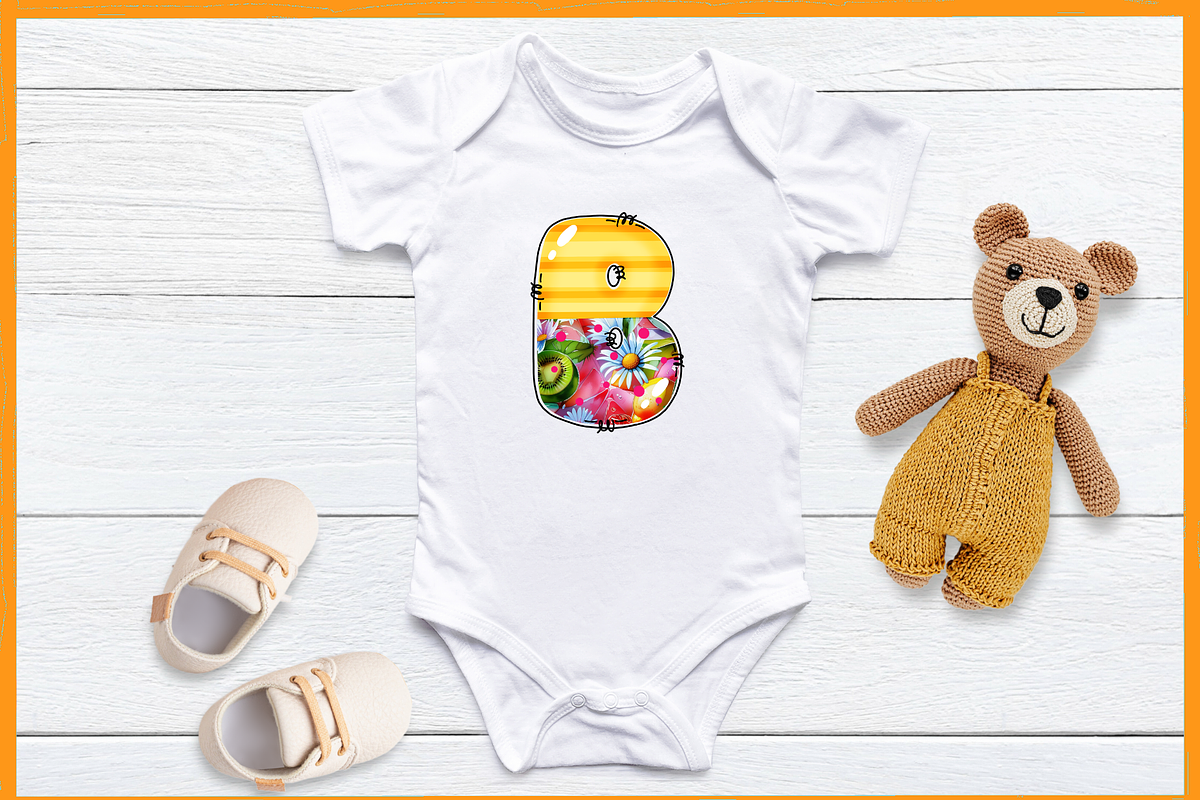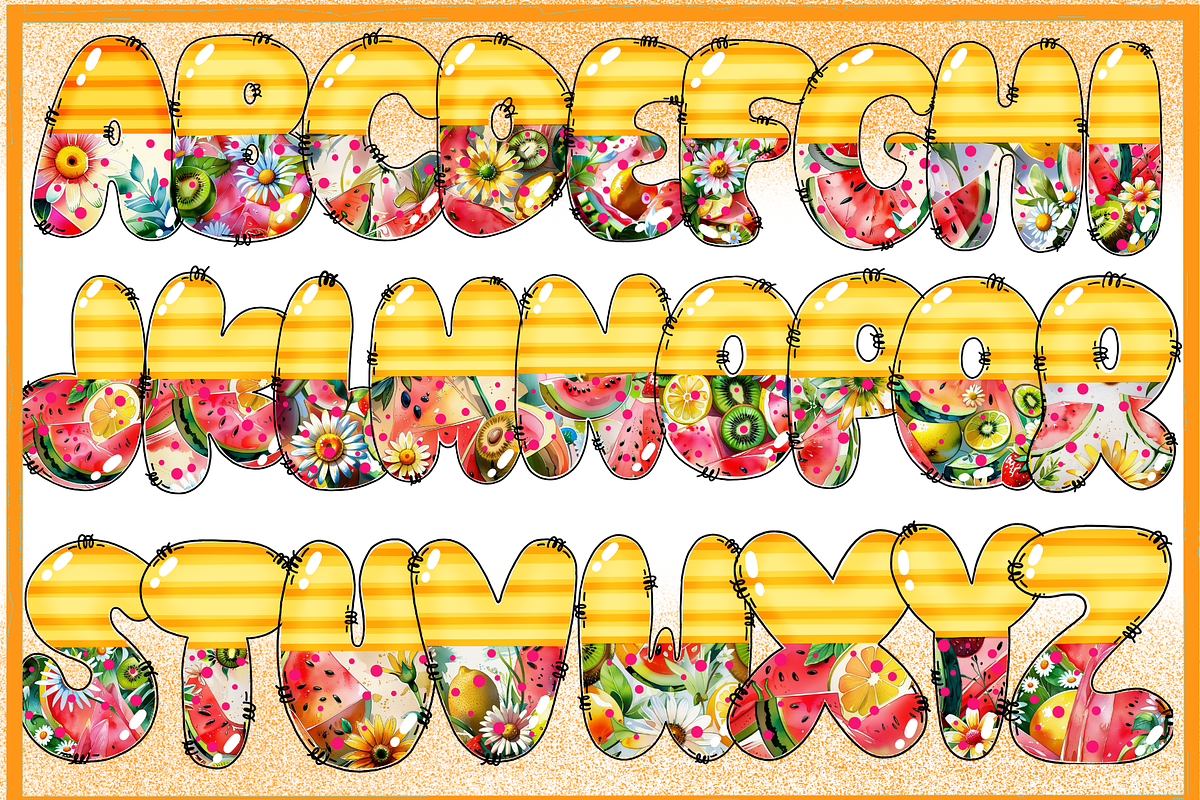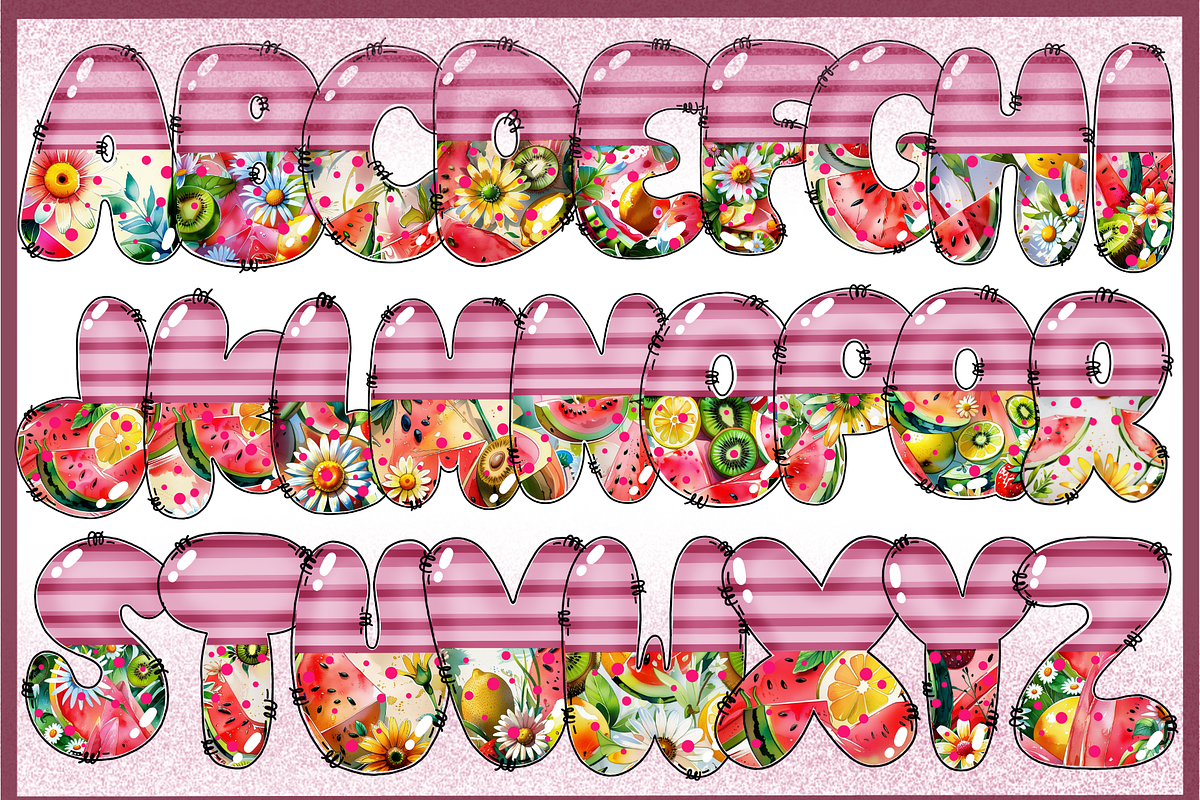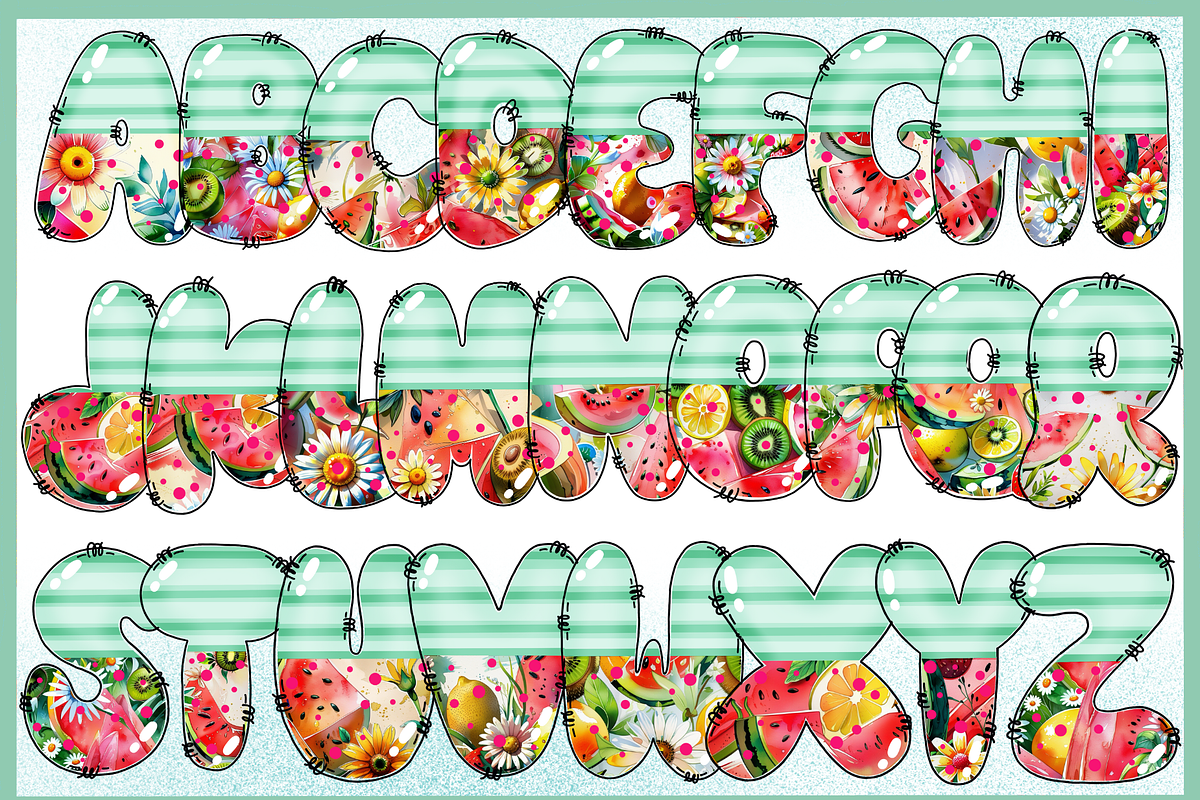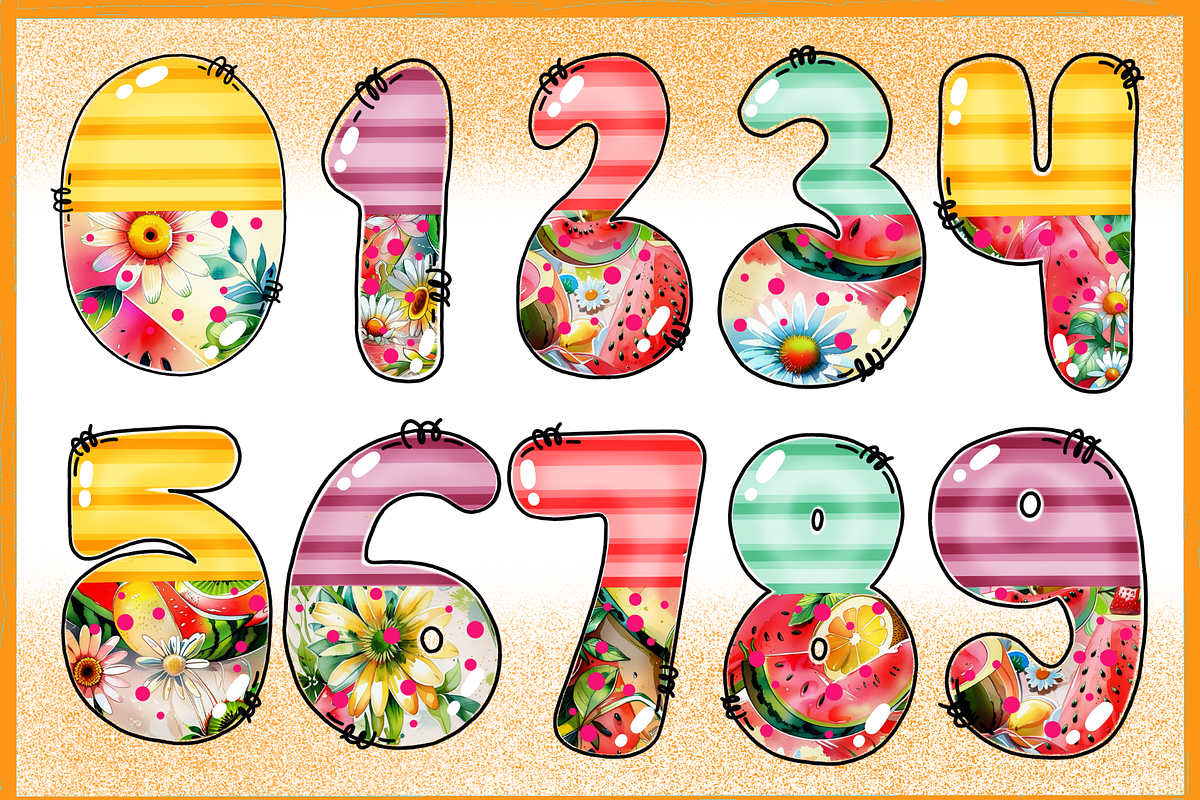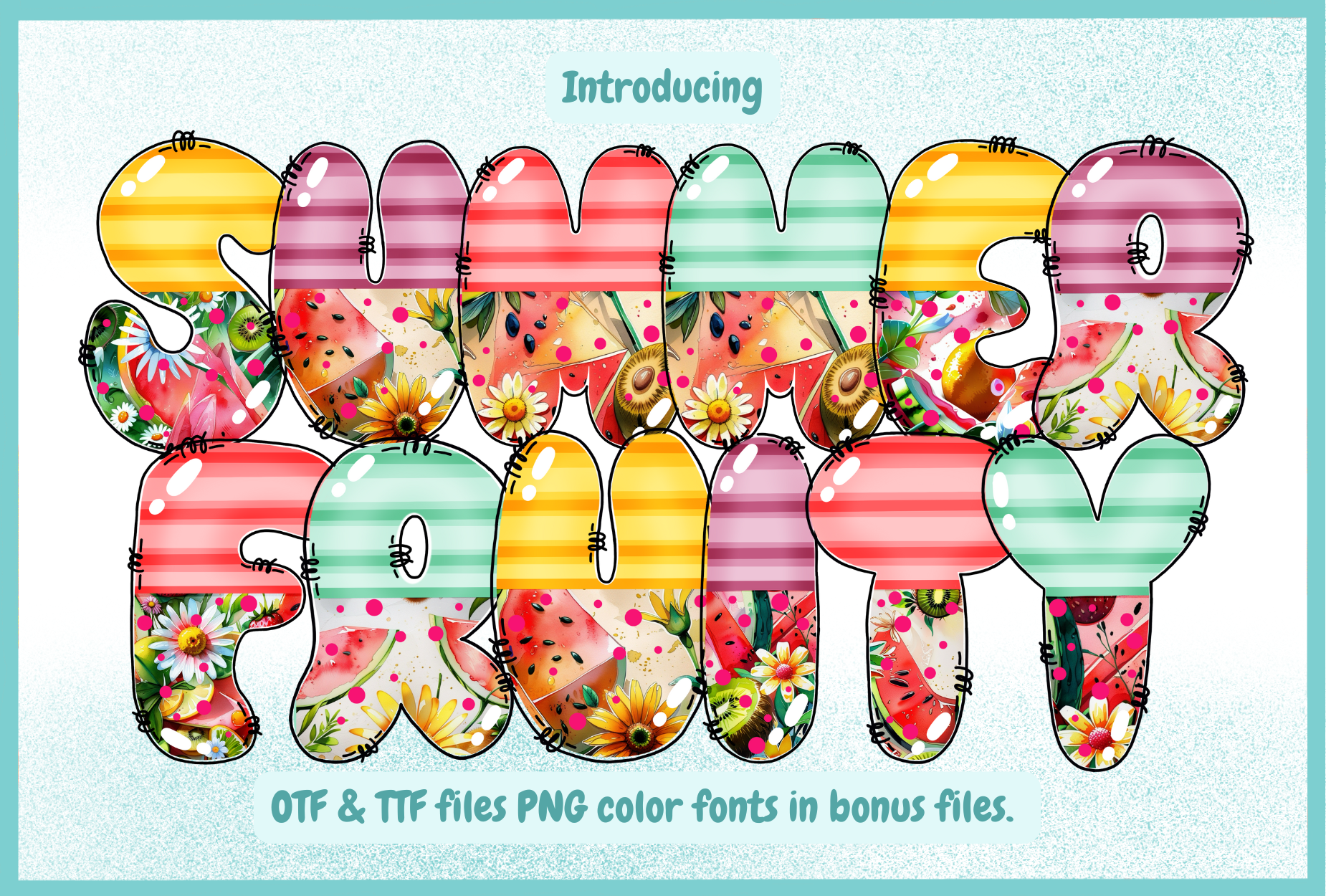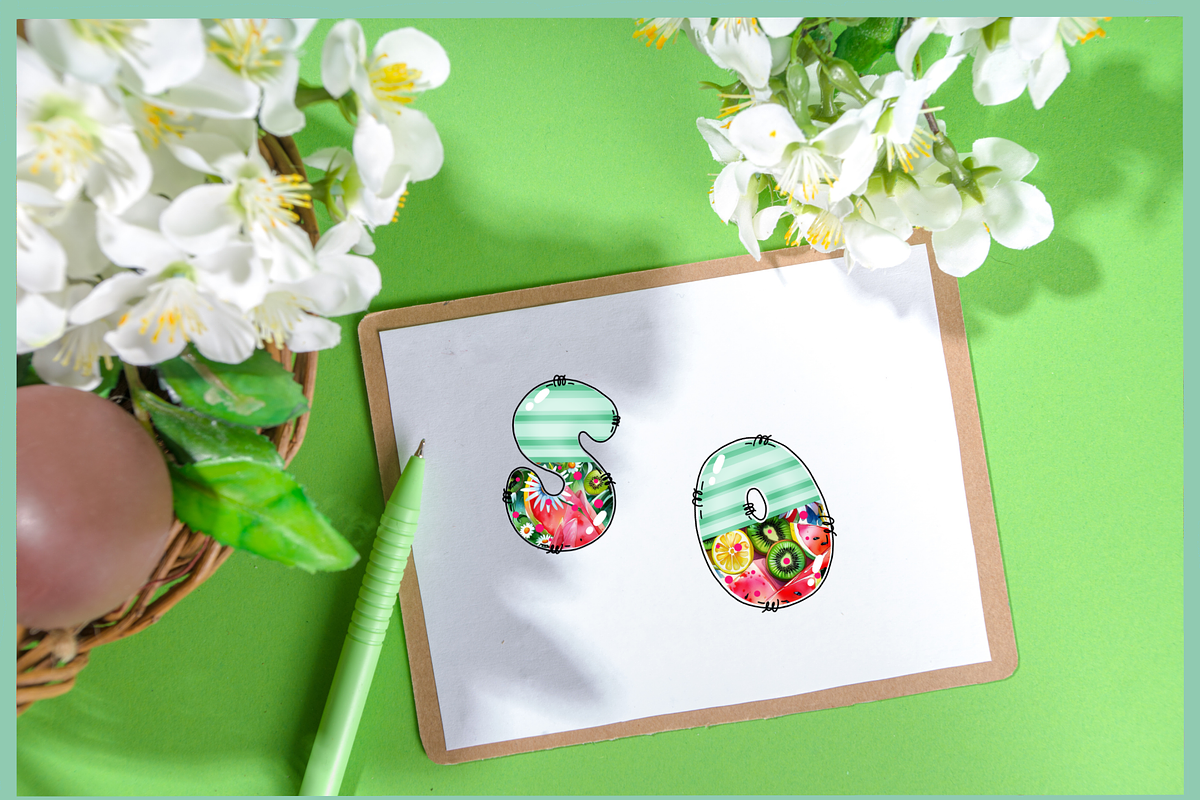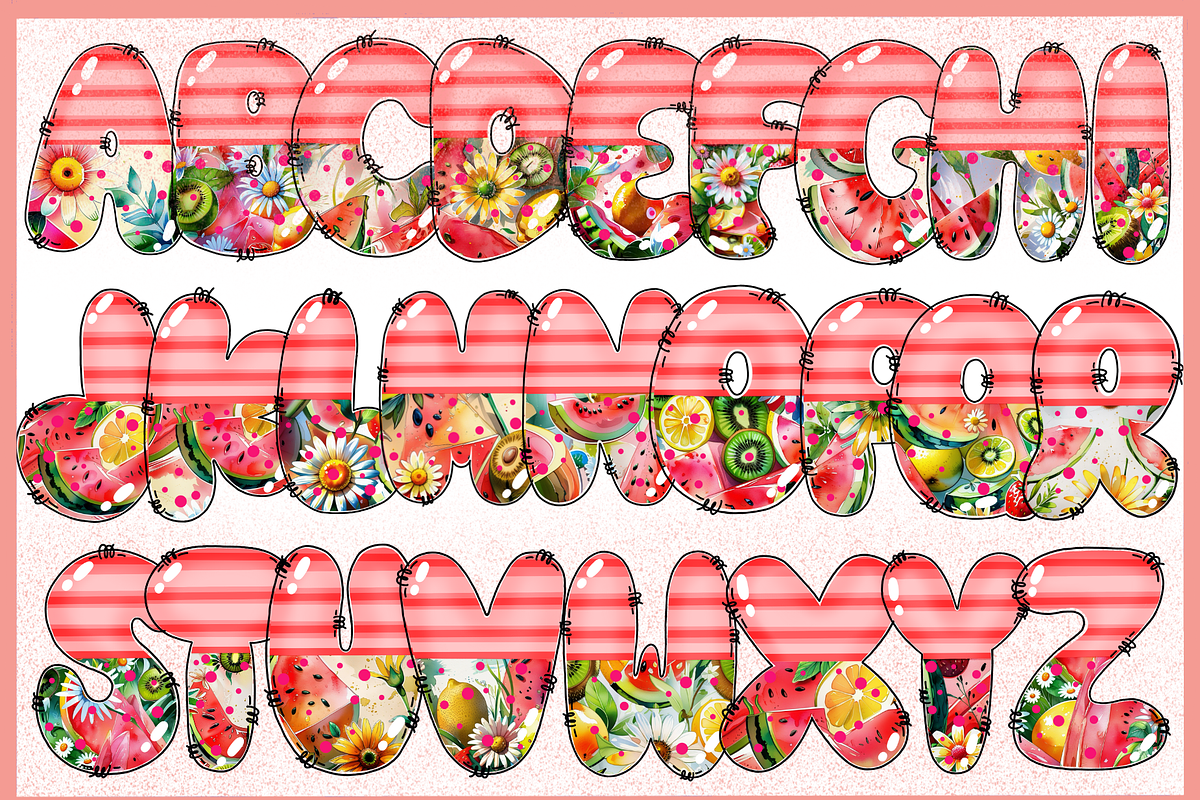
Summer Fruity Font
Suitable Super Cute Handwriting Front Simple Style Presentation Education Advertising Illustration Multi-purpose Simple Design Applications Suitable Display Fonts Happy Fonts Sticker Joy .